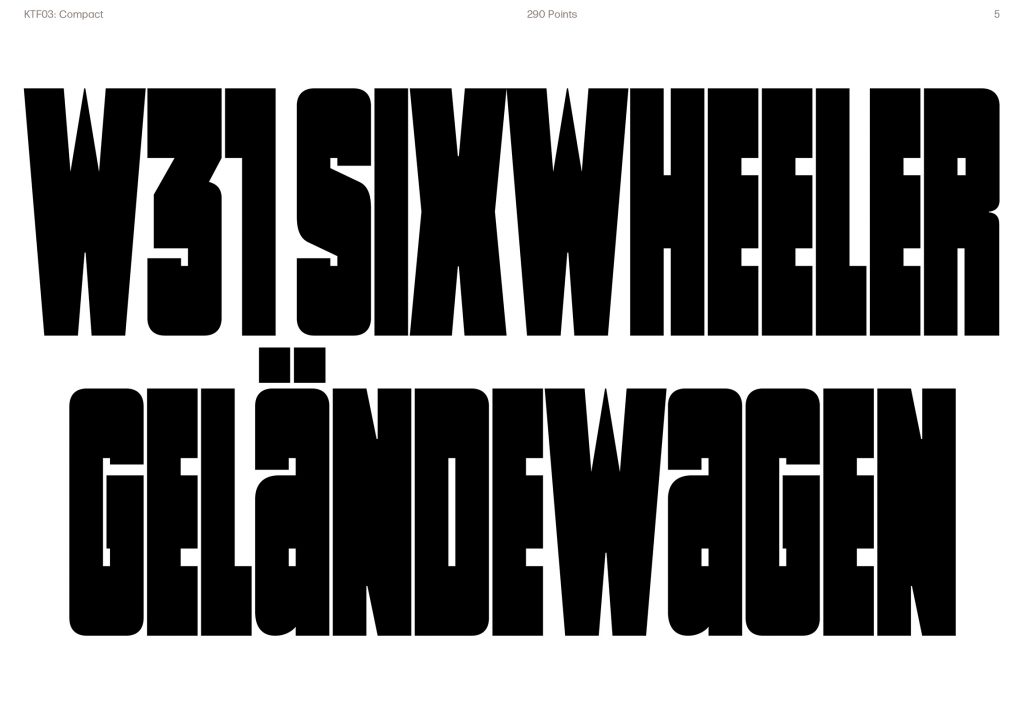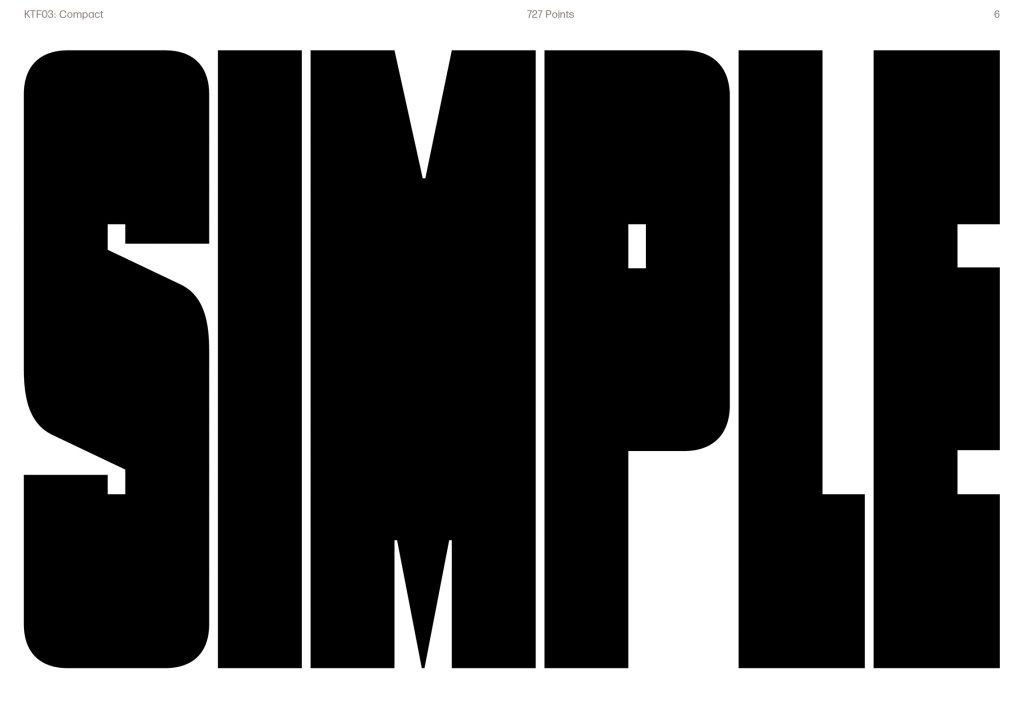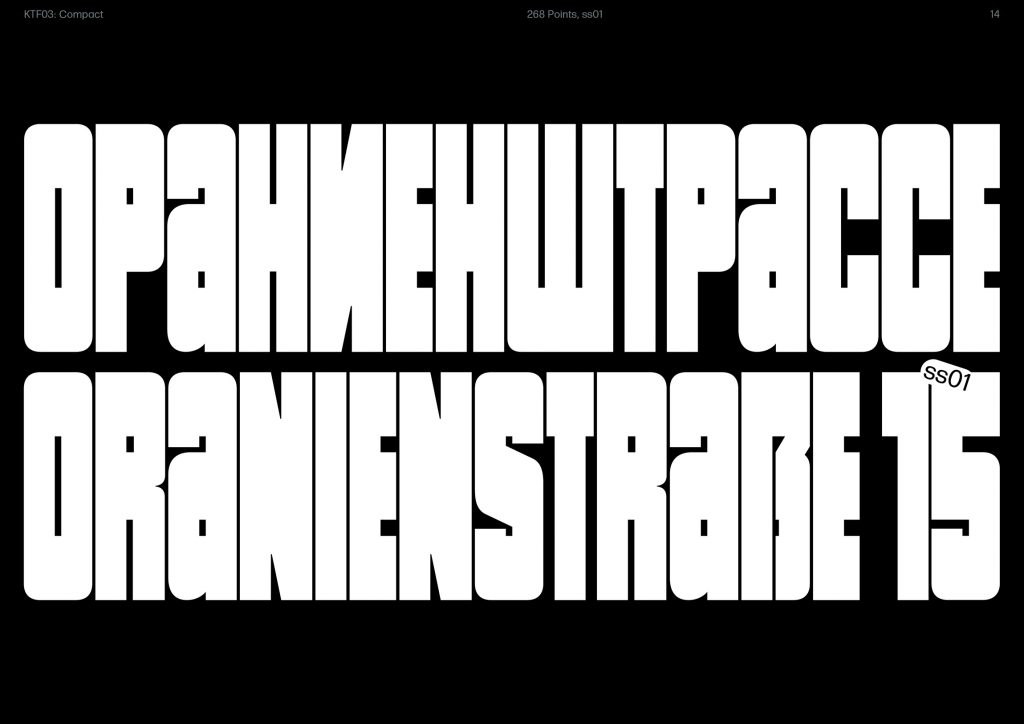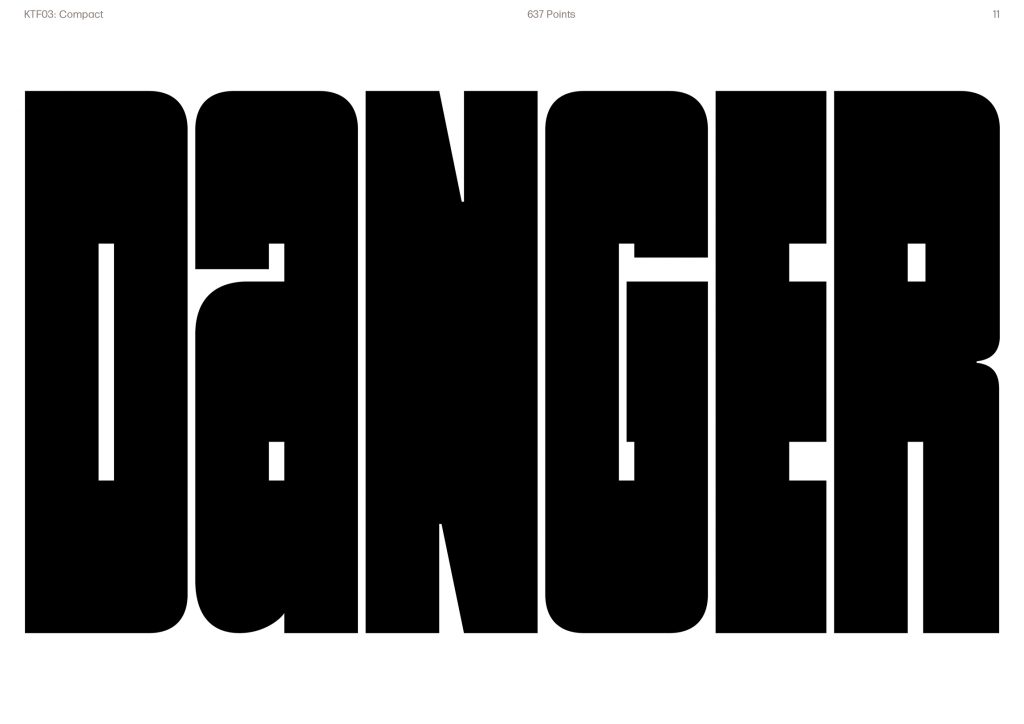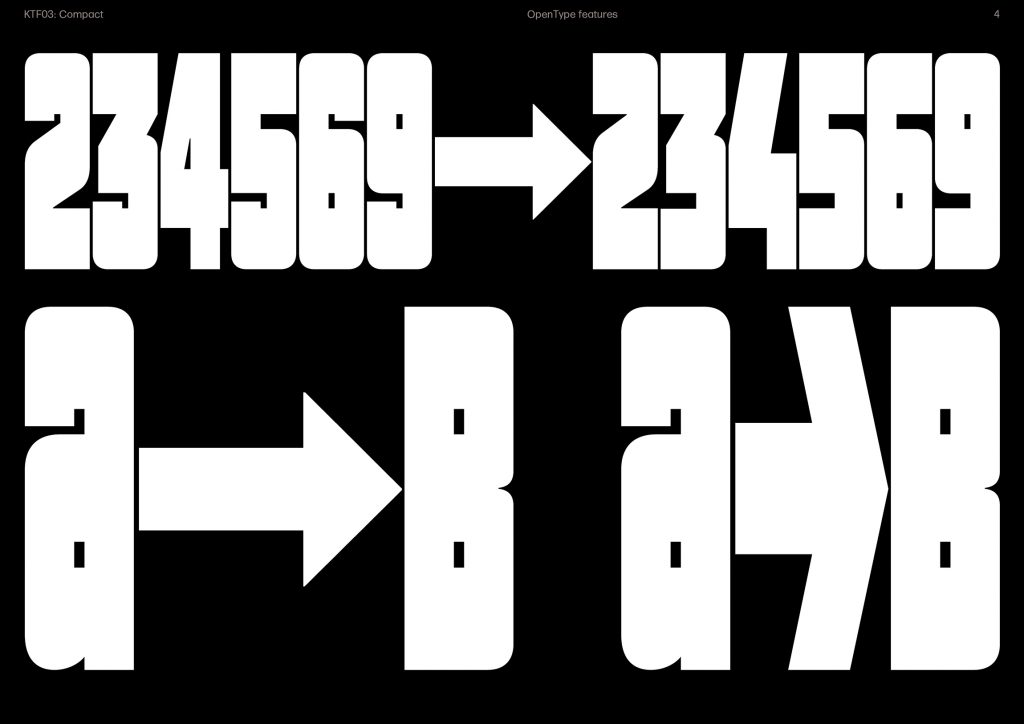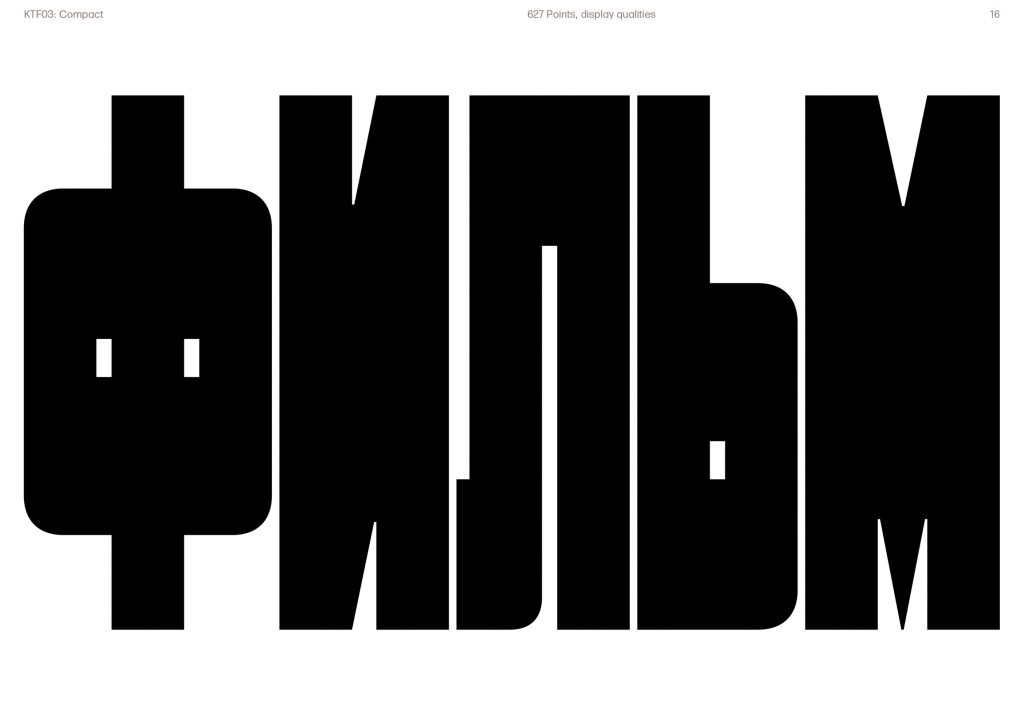
Name: Compact Black
Designer: Yevgeniy Anfalov
Foundry: Kyiv Type Foundry (KTF)
Release Date: July 2021
Back Story: KTF, a new foundry based in Kyiv and Hannover, was envisioned by founders Yevgeniy Anfalov and Oleś Gergun as a typographic playground at the intersection of Latin and Cyrillic scripts. Their design mission ranges from hunting ghost fonts from the behind-the-Iron-Curtain-past to collaborations with older masters to bridge the generation gap and preserve knowledge. KTF Compact is the happy result of what Anfalov calls an impromptu session of re-drawing Soviet visual artifacts.
In his 1936 essay “The Work of Art in the Age of Mechanical Reproduction,” cultural critic Walter Benjamin spoke of aura—the authenticity of a single original object. With this project, Anfalov sought to complete a process of “de-aurization” to transform some original one-off type from a 1982 Soviet hand-drawn movie poster collected by his colleague Kirill Gluschenko into something modern, reproducible, digital.
The designer says, “I see potential in static typography becoming dynamic as digital fonts. The moment of translation is the most fun part of the game. I analyse what can be removed from the outline, how to distill and emphasize certain visual characteristics, and develop missing glyphs. Suddenly, it becomes a typographic alchemy where you’ve already forgotten where you started.”
Why’s it called Compact Black? Its relatively narrow proportions and very tight letter spacing suggested the name.
What are its distinguishing characteristics? Compact Black pays subtle homage to the mid-20th century heyday of magazine art direction, when designers such as Willy Fleckhaus and Herb Lubalin created their groundbreaking work. This all-caps ultimate heavyweight display typeface exists on the edge of legibility, with narrow vertical characters formed from slightly rounded rectangles of equal width. Primadonnas such as the sharp-toothed W and M provide contrast to the soft edges seen on the rest of the alphabet.
Anfalov says, “Compact is a typographic Roland 909*: as you type it, a repetitive yet vibrant pattern comes into being. The letters are an active visual agent that takes up space and inverts it, with type becoming a surface.”
*The Roland TR-909 Rhythm Composer is a drum machine from 1983 that became influential in the development of electronic dance music genres such as techno, house, and acid.
What should I use it for? Anfalov says, “Use it for all opportunities that celebrate typography including, but not limited to, movie titles, magazine spreads, record covers, and books. Kirill, whose poster inspired this typeface, tested it exhaustively in a short movie project with a full set of collateral materials. Due to the font’s simple structure, it even worked out with knitting: a fellow designer from Belarus, Alex Chumak, made a scarf as band merch.”
What other typefaces do you like to pair it with? Try something super lightweight such as Boymans by Radim Pesko or Supreme Display Choupette by Arve Batevik.